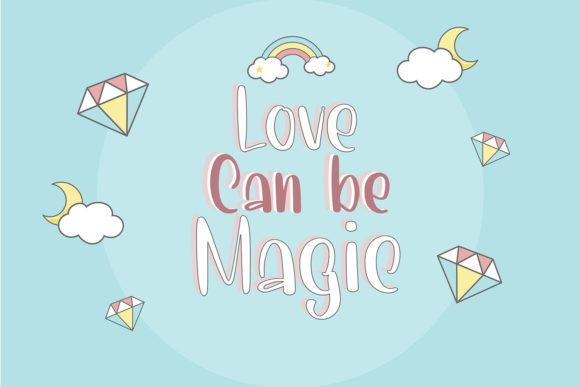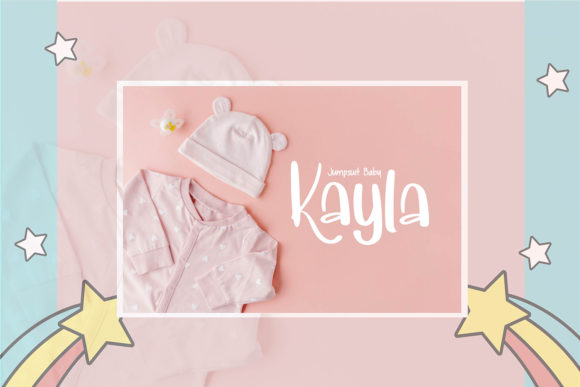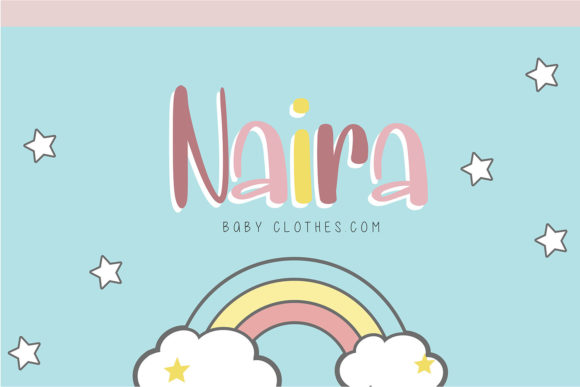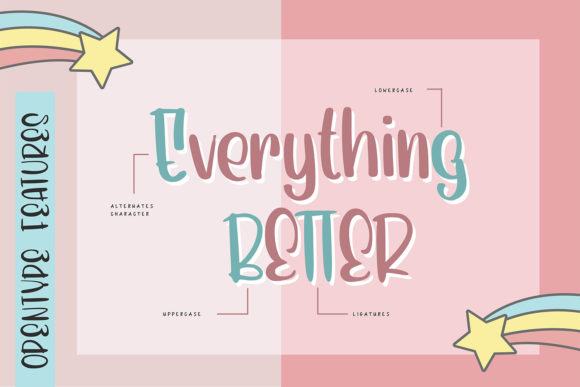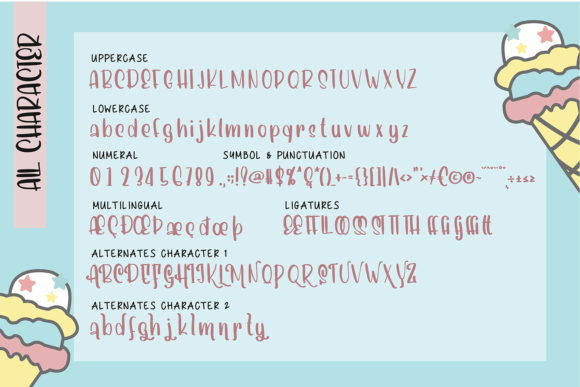
Introduction to Magical Moments Font Font
Fonts play a crucial role in design, and the Magical Moments Font font is a typeface that brings both character and versatility to any project. Whether you’re working on a branding project, a website, or a print design, the Magical Moments Font font offers a unique style that can elevate your work.
| 📌 Font Name | Magical Moments Font |
| 👤 Author | Vunira |
Magical Moments is a relaxed and playful display font.
Magical Moments is a relaxed and playful display font. This font is PUA encoded which means you can access all of the glyphs and swashes with ease
Key Features of Magical Moments Font Font
The Magical Moments Font font is more than just a typeface – it’s a design tool that helps you communicate your message with style and clarity. Its unique character set and versatile design make it suitable for a wide range of applications, from elegant invitations to bold headlines.
With its carefully crafted letterforms and balanced proportions, the Magical Moments Font font ensures readability and visual appeal across all mediums.
What makes Magical Moments Font font special?
The Magical Moments Font font stands out with its unique design, exceptional readability, and versatility across various design applications.